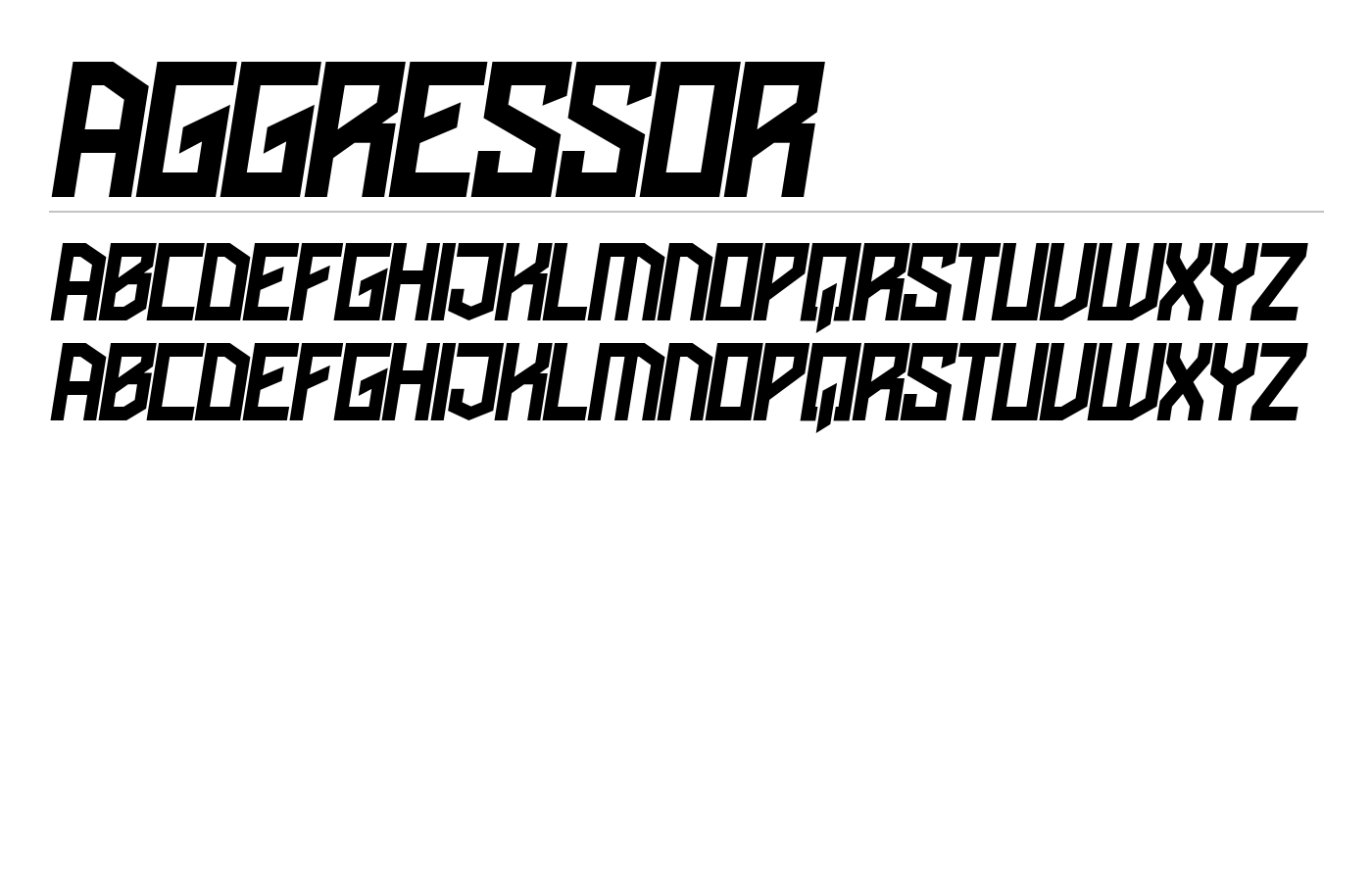
Aggressor is a bold, condensed sans serif font with a sharp, geometric design that exudes a strong, aggressive energy. Its tall, angular letterforms and consistent stroke weight make it ideal for impactful headlines, logos, and branding that demand attention and convey power or intensity. This font works best in contexts where a modern, edgy, and assertive style is needed to stand out.
Aggressor Font
About Aggressor Font